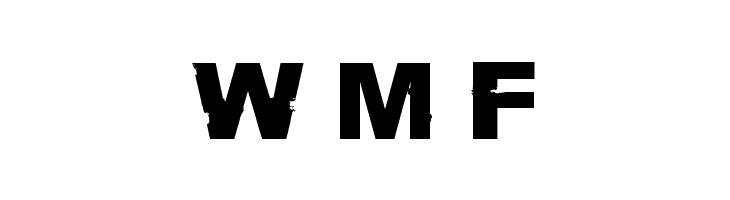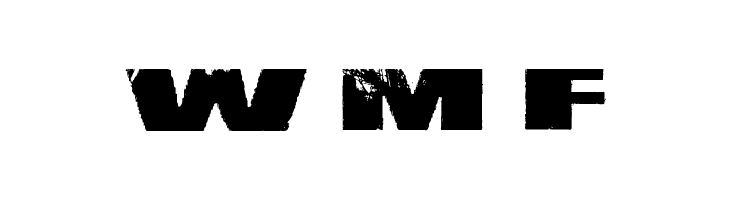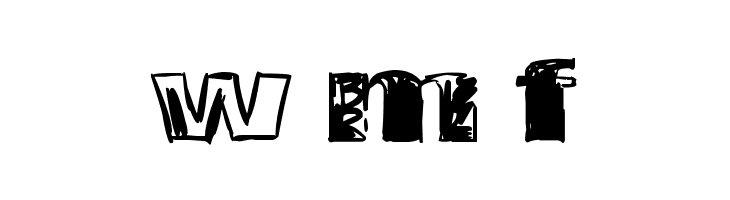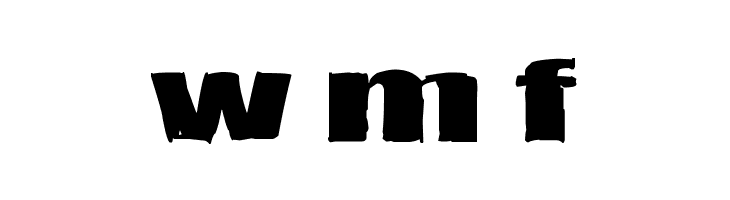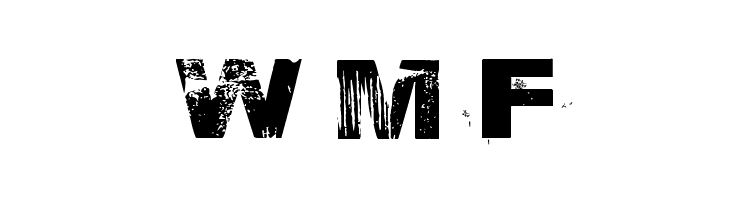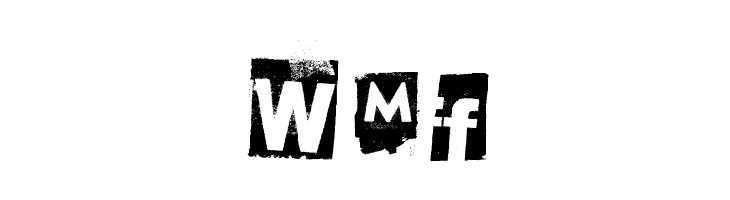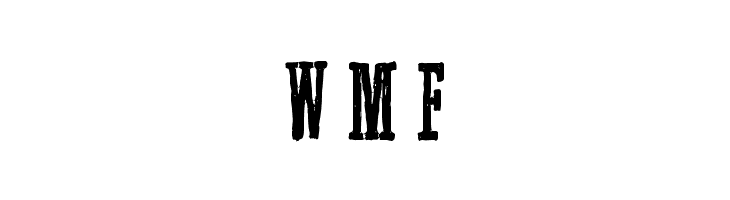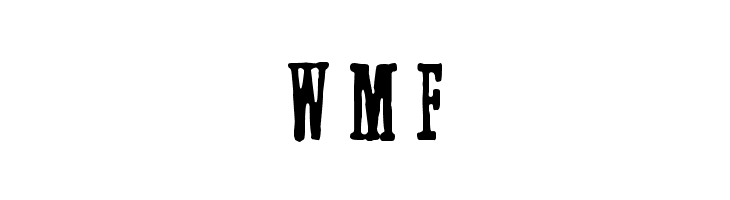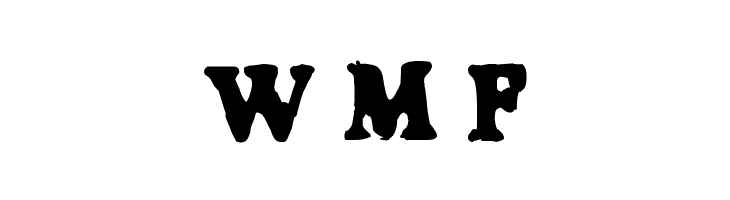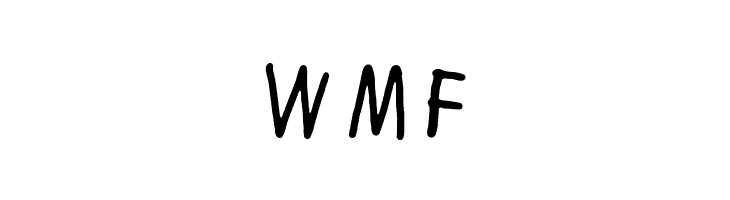
A bold, distressed font with a vintage, hand-drawn appearance.
A bold, decorative font with a textured, outlined style and shadow effect.
Bold, outlined font with a distressed, edgy texture.
A bold, distressed font with a grunge, cut-out style.
A distressed, grungy font with a dripping paint effect.
An eclectic, collage-style font with mixed serif and sans-serif characters.
A bold, distressed typewriter-style font with a vintage, grunge aesthetic.
A distressed, typewriter-style font with a grunge aesthetic.
A bold, brush-style font with an expressive and dynamic appearance.
A chaotic, hand-drawn font with irregular, jagged strokes and a graffiti-like style.